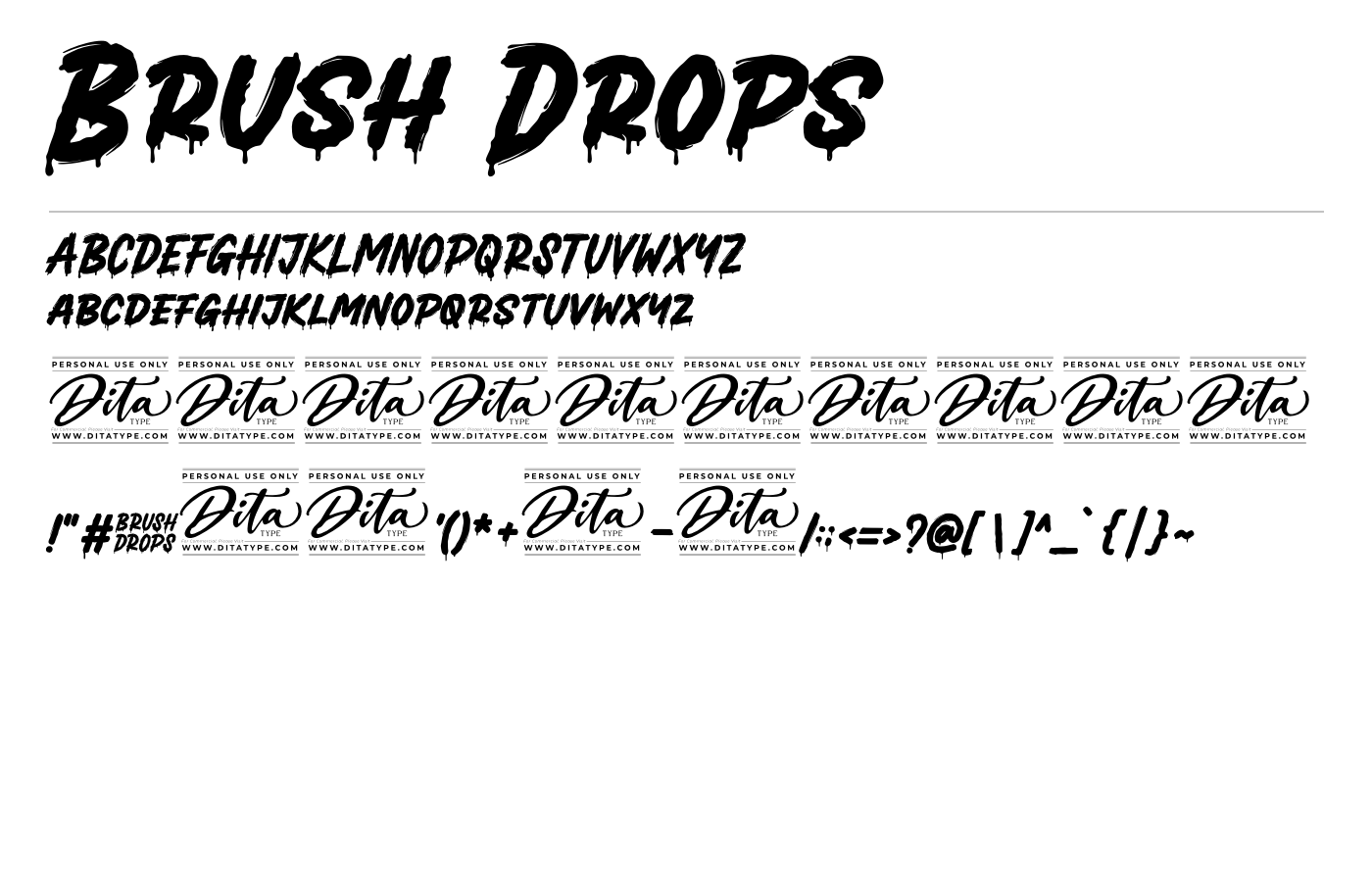
Brush Drops is a bold, hand-painted brush script font with a dynamic and energetic feel, featuring dripping ink effects that add a raw, artistic touch. Its casual yet impactful style makes it perfect for creative logos, posters, and edgy branding where a sense of personality and movement is desired. This font works well in designs aiming to stand out with a rebellious or expressive vibe.
Brush Drops Font
About Brush Drops Font